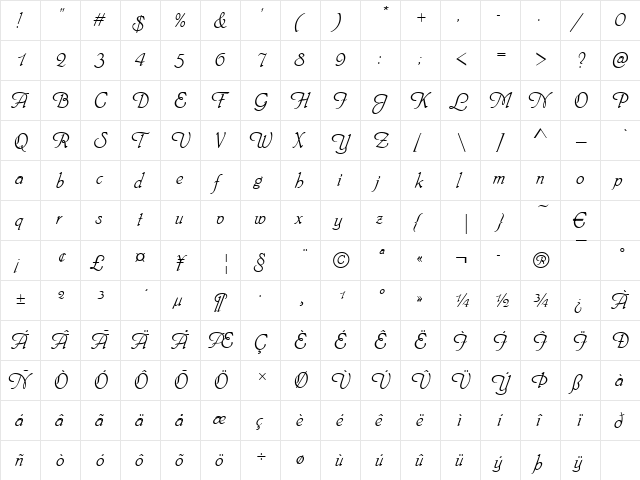
Phyllis Becker Regular
Design Context for Phyllis Becker Typeface
Phyllis Becker is a composed and adaptable typeface that performs quietly and consistently across a wide range of design contexts.